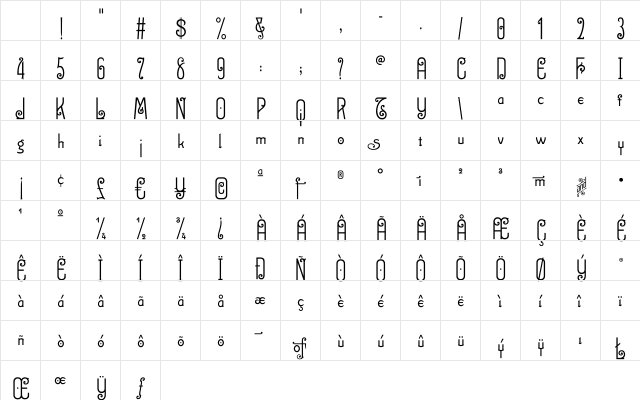
Complete ZincItalianSGA TT Regular glyph index. Displaying only characters natively supported by ZincItalianSGA TT Regular font.
ZincItalianSGA TT is a composed and adaptable typeface that performs quietly and consistently across a wide range of design contexts.